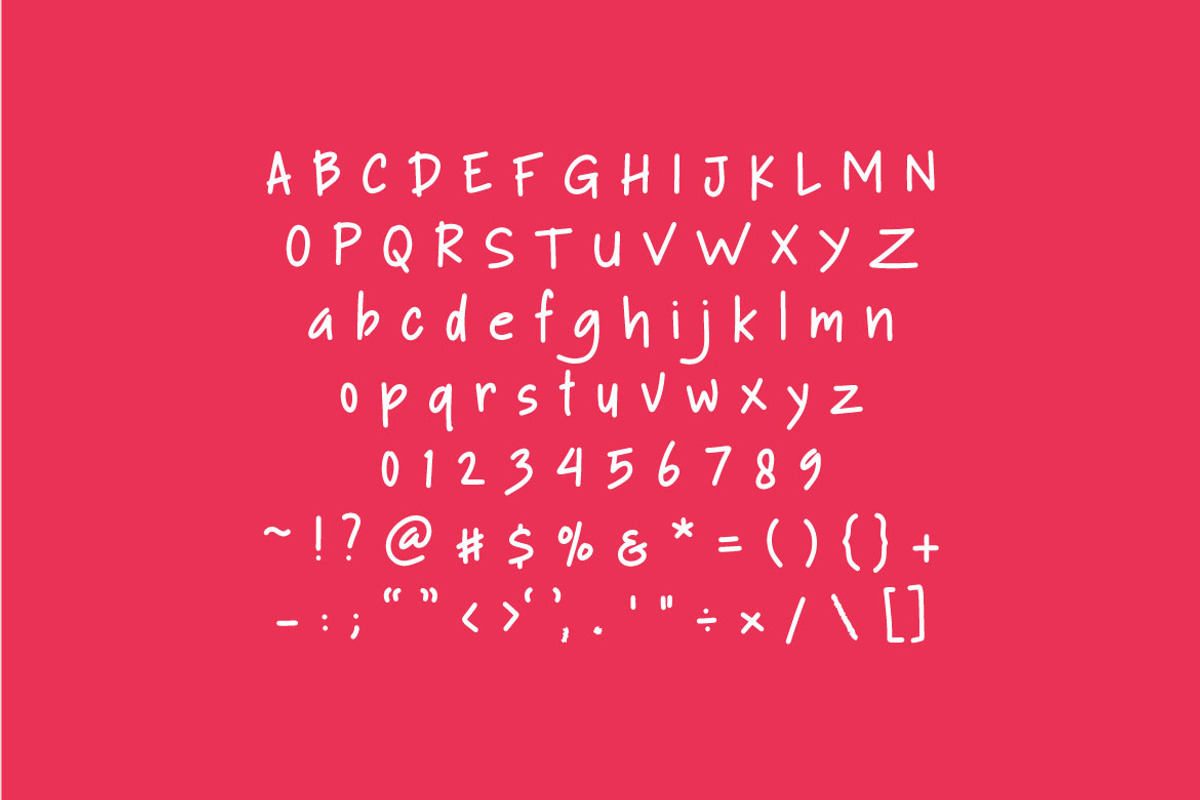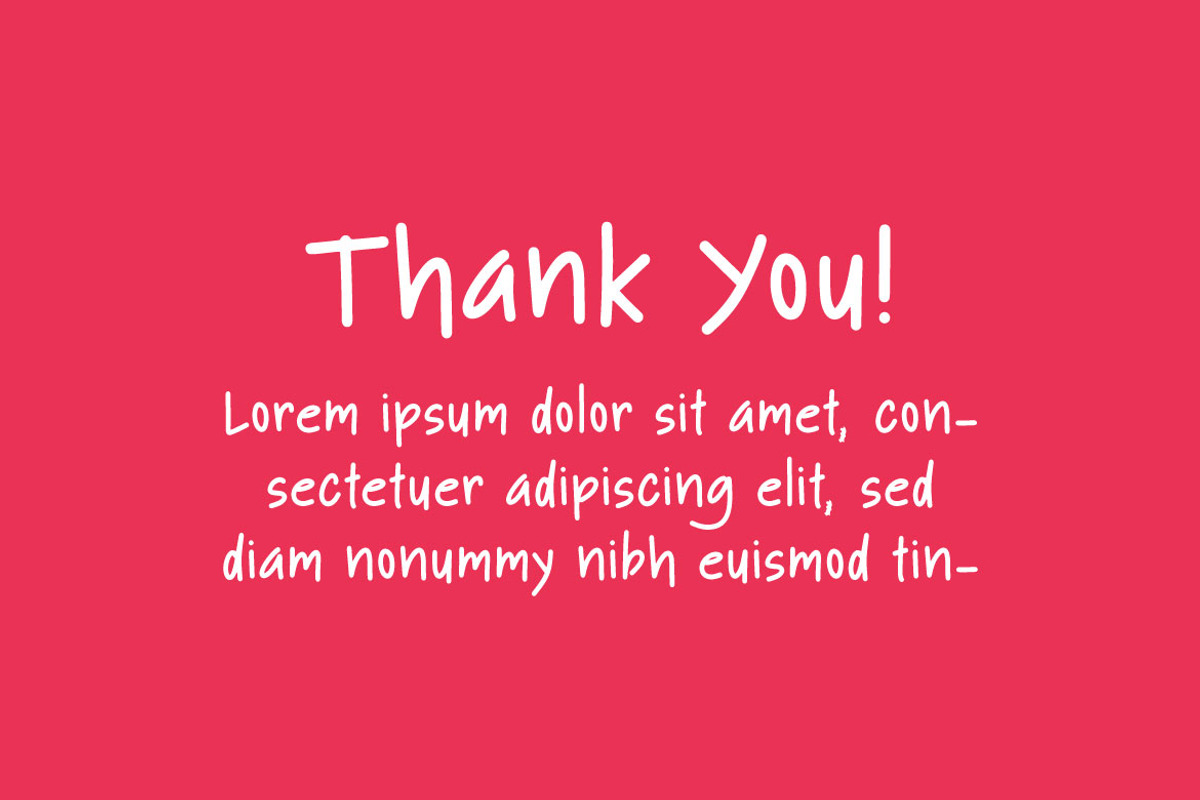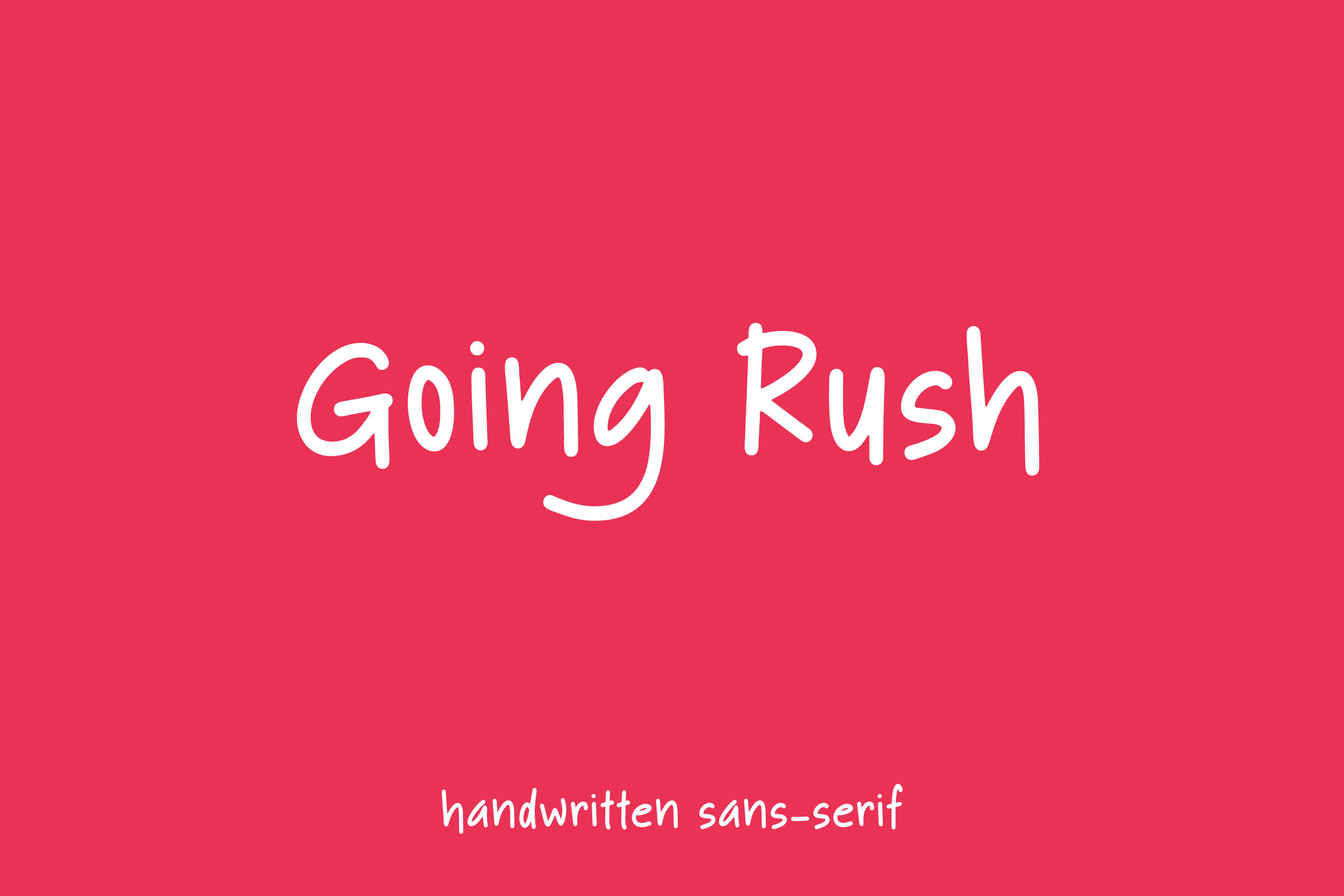
Going Rush - Handwritten Font
GOING RUSH is a minimalist handwritten font. This font brings modern futuristic ambience in each word. Going Rush can be used in any works such as book cover, music cover, children book, poster, advertisement, social media content, logo and many more.